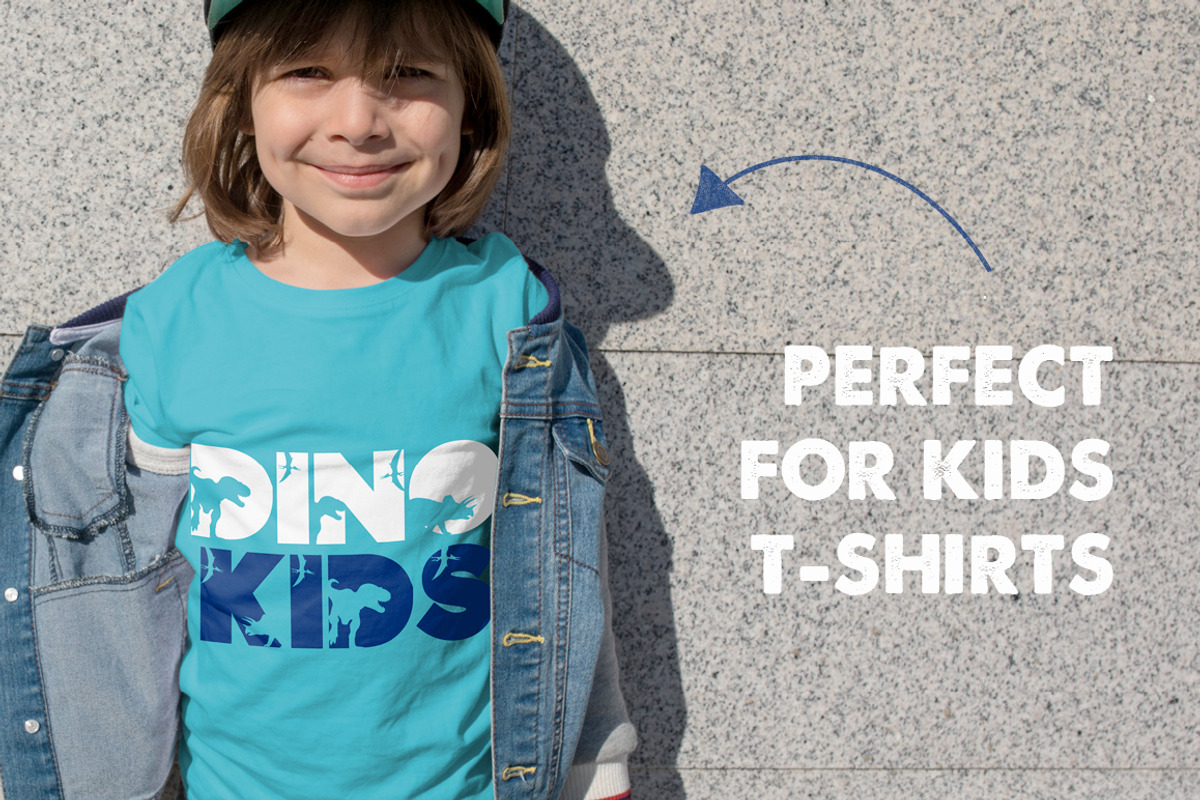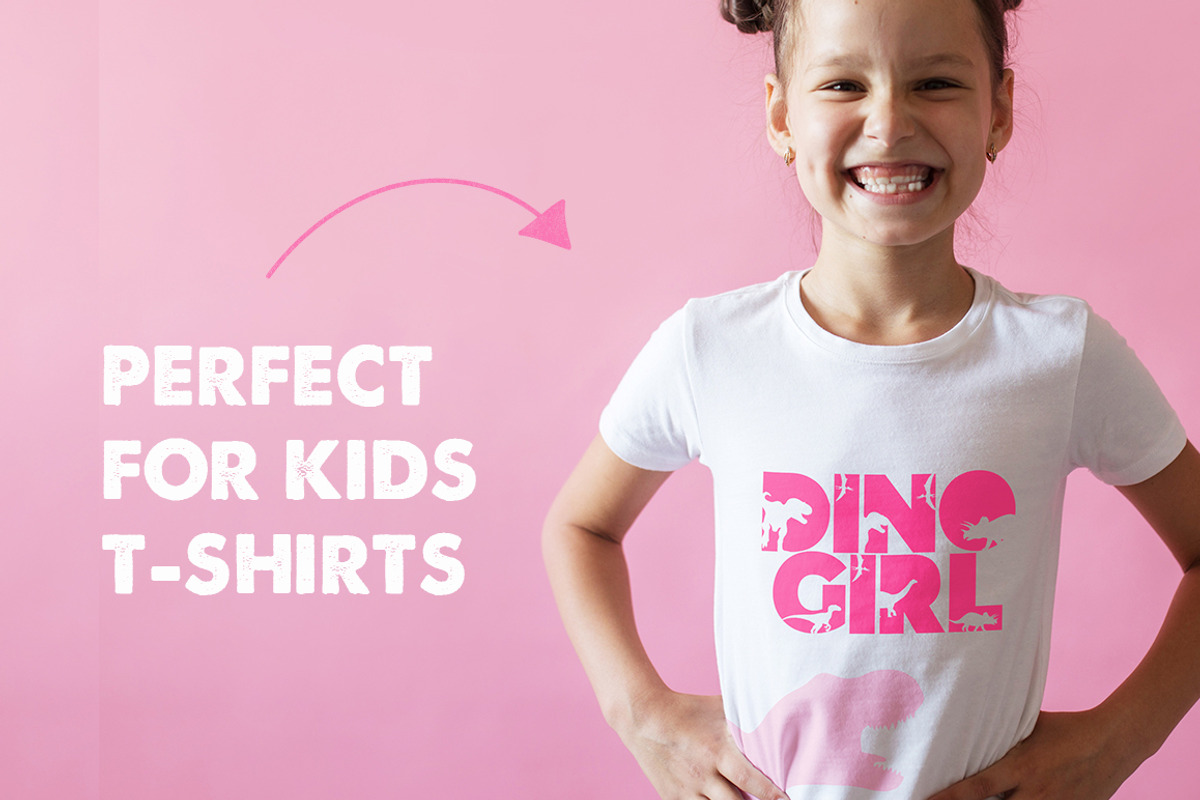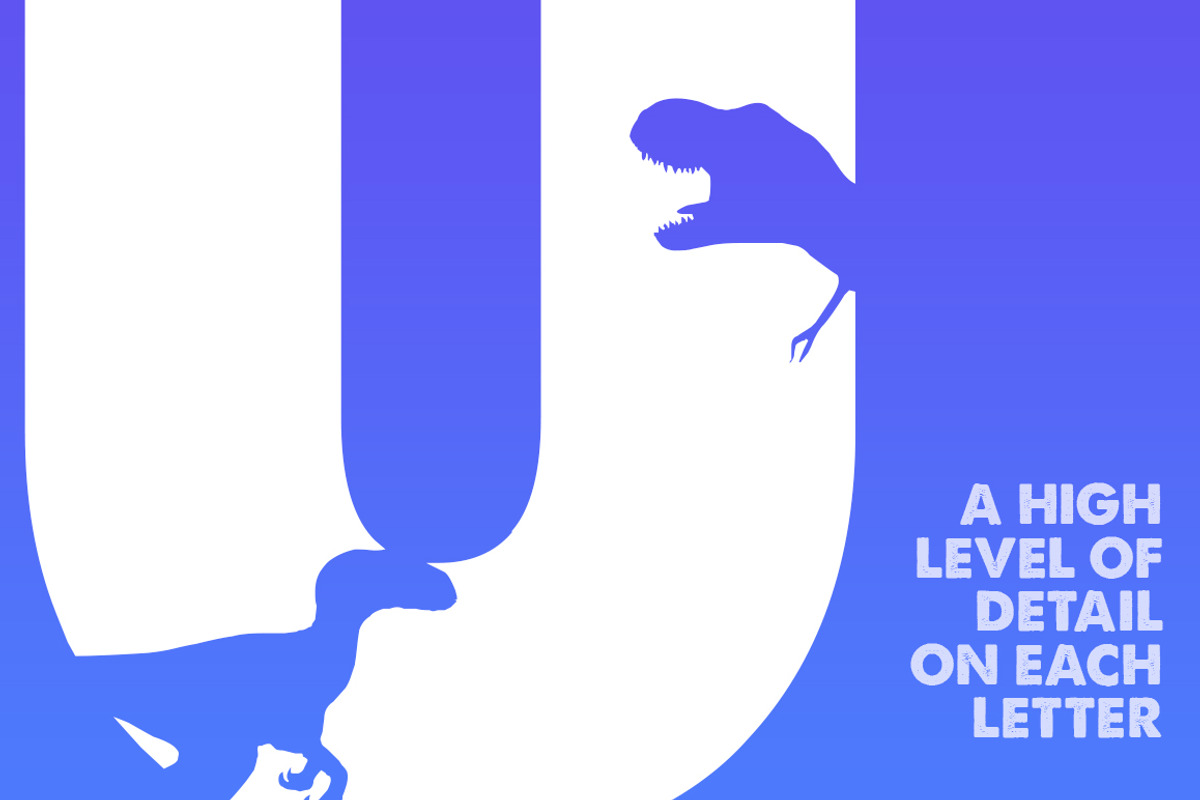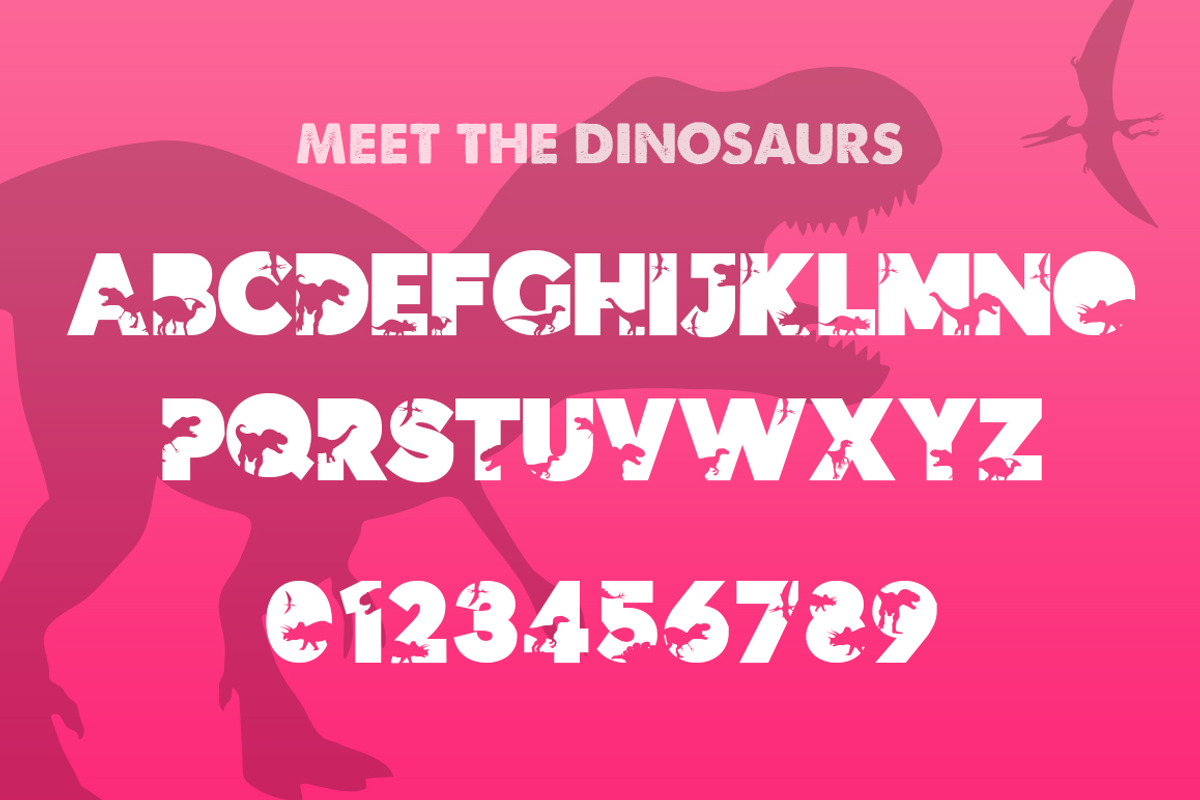
Dinosauce Font
Open the door, get on the floor, everybody walk the dinosaur! Ok, maybe not, but at least use this rawrsome (sorry) new font in your designs! Full of your fave prehistoric creatures and perfect for kids clothes and invites! Enjoy!
Why Dinosauce Font is worth a look
Dinosauce Font by Salt & Pepper Designs fits naturally into Branding, posters, packaging, typography.